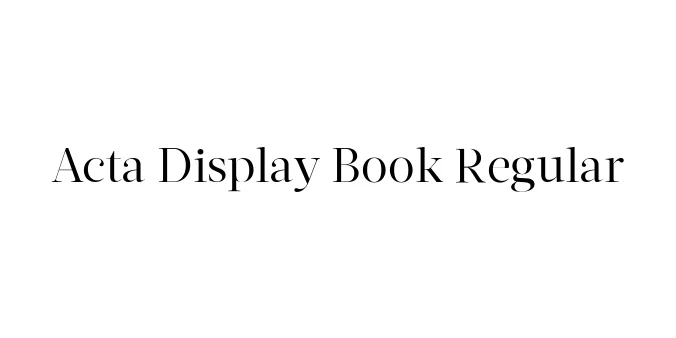
Acta Display Book Regular
Designed by Dino dos Santos
Acta Display Book Regular was originally designed in 2010 by Dino dos Santos for the Chilean newspaper La Tercera. This typeface was part of a larger project to create a versatile and elegant type system that could handle the rigorous demands of daily newspaper production while maintaining a high level of aesthetic sophistication. The Display version is specifically optimized for large-scale usage, featuring increased contrast and sharper details than its text counterparts.
The font is characterized by its neoclassical influences and sharp, triangular serifs, which provide a distinct personality in editorial environments. As a staple of the DSType foundry, Acta Display Book Regular has become a favorite among graphic designers for its ability to convey authority and grace simultaneously. It bridges the gap between traditional newsprint typography and modern digital publishing with its clean lines and balanced proportions.
Acta Display Book Regular Best Uses
Specifically crafted for magazine and newspaper headlines.
Excellent for high-end fashion logos and premium product packaging.
Maintains its sharp details and elegance on posters and billboards.
Adds a sophisticated and authoritative touch to digital landing pages.